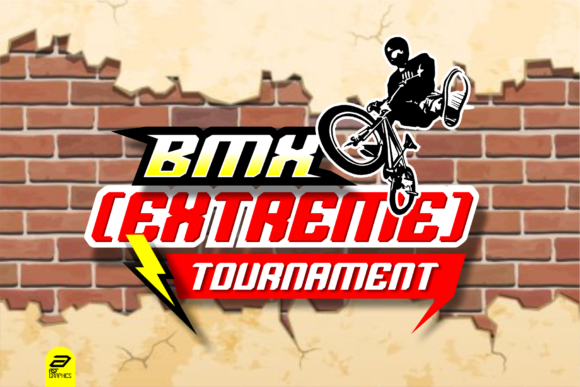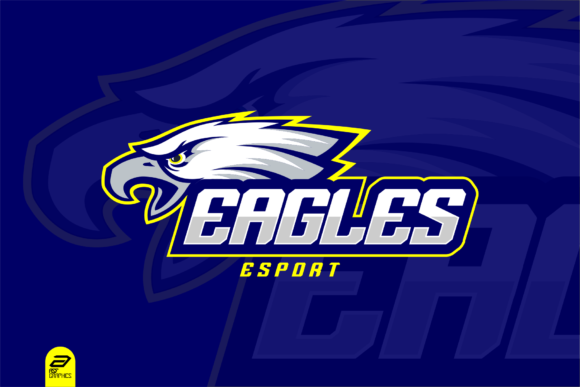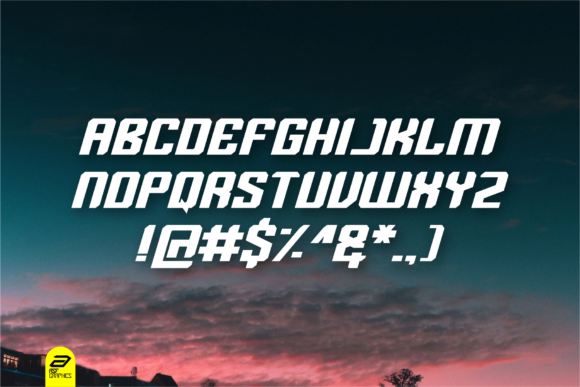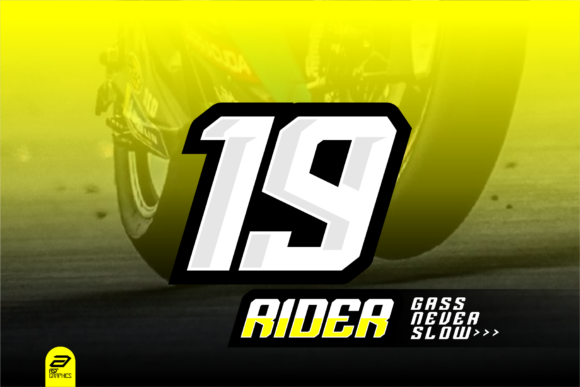
Introduction to Metricas V2 Font
Metricas V2 is a cool, bold and futuristic display font.
It can be added to a variety of design ideas, related to technology, speed or power The only limit is your imagination.
Key Features of Metricas V2 Font